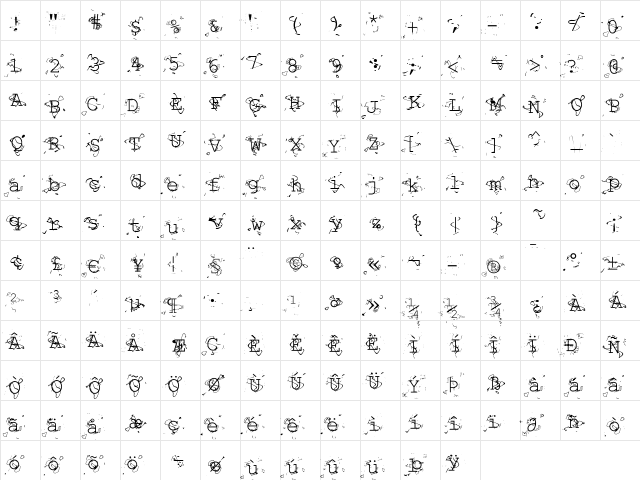
Liquid Newspaper Regular
Design Context for Liquid Newspaper Typeface
Liquid Newspaper is a composed and adaptable typeface that performs quietly and consistently across a wide range of design contexts.